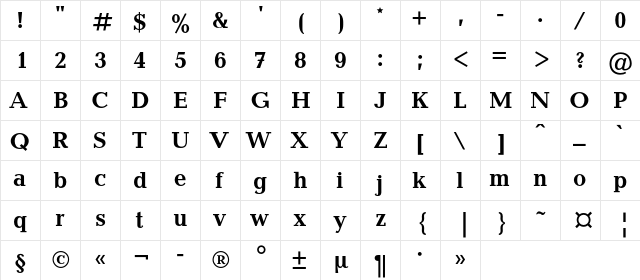
BalticaC Bold Font Preview
BalticaC Bold
Design Context for BalticaC Typeface
BalticaC takes a measured approach to typography — its balanced proportions and neutral character make it a reliable workhorse for both digital and print work. Its bold stroke weight gives it real presence on the page.